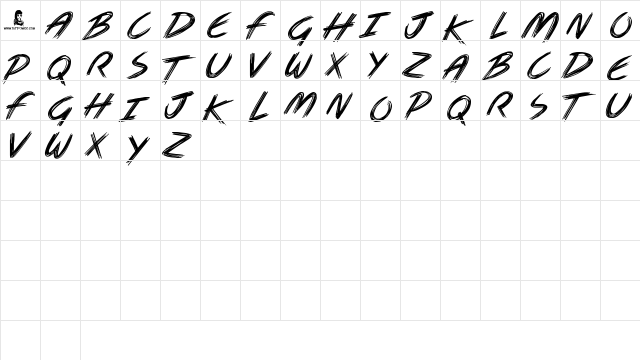
Metal Head Regular
| Foundry | Jonathan S. Harris |
| Designer | Jonathan Stephen Harris |
Design Context for Metal Head Typeface
Metal Head is a composed and adaptable typeface that performs quietly and consistently across a wide range of design contexts.